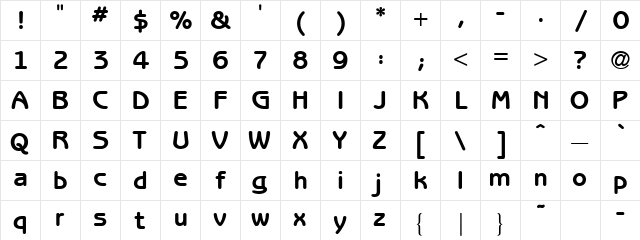
Frederick Old Style Bold Regular
Design Context for Frederick Old Style Bold Typeface
Frederick Old Style Bold is a composed and adaptable typeface that performs quietly and consistently across a wide range of design contexts. Its bold stroke weight gives it real presence on the page.